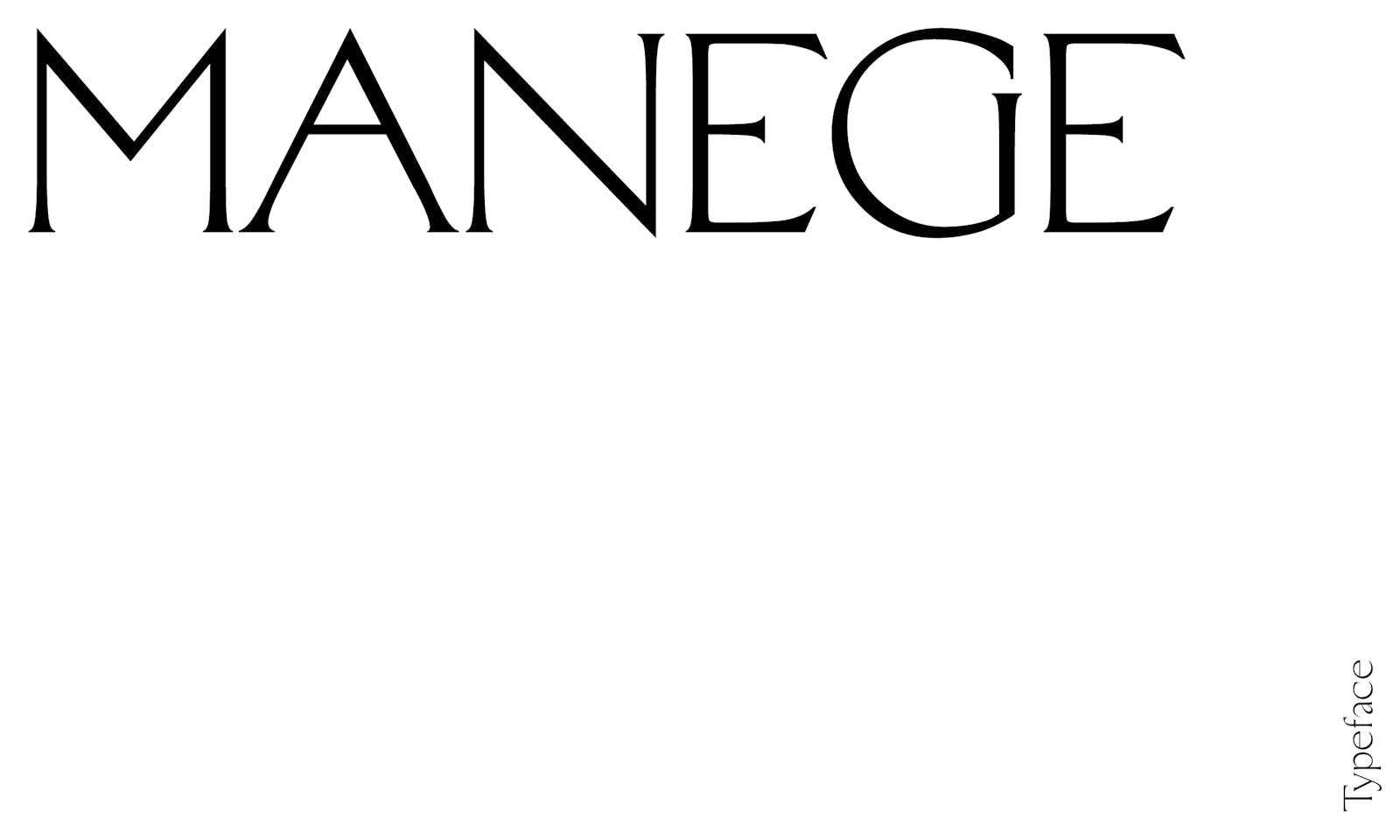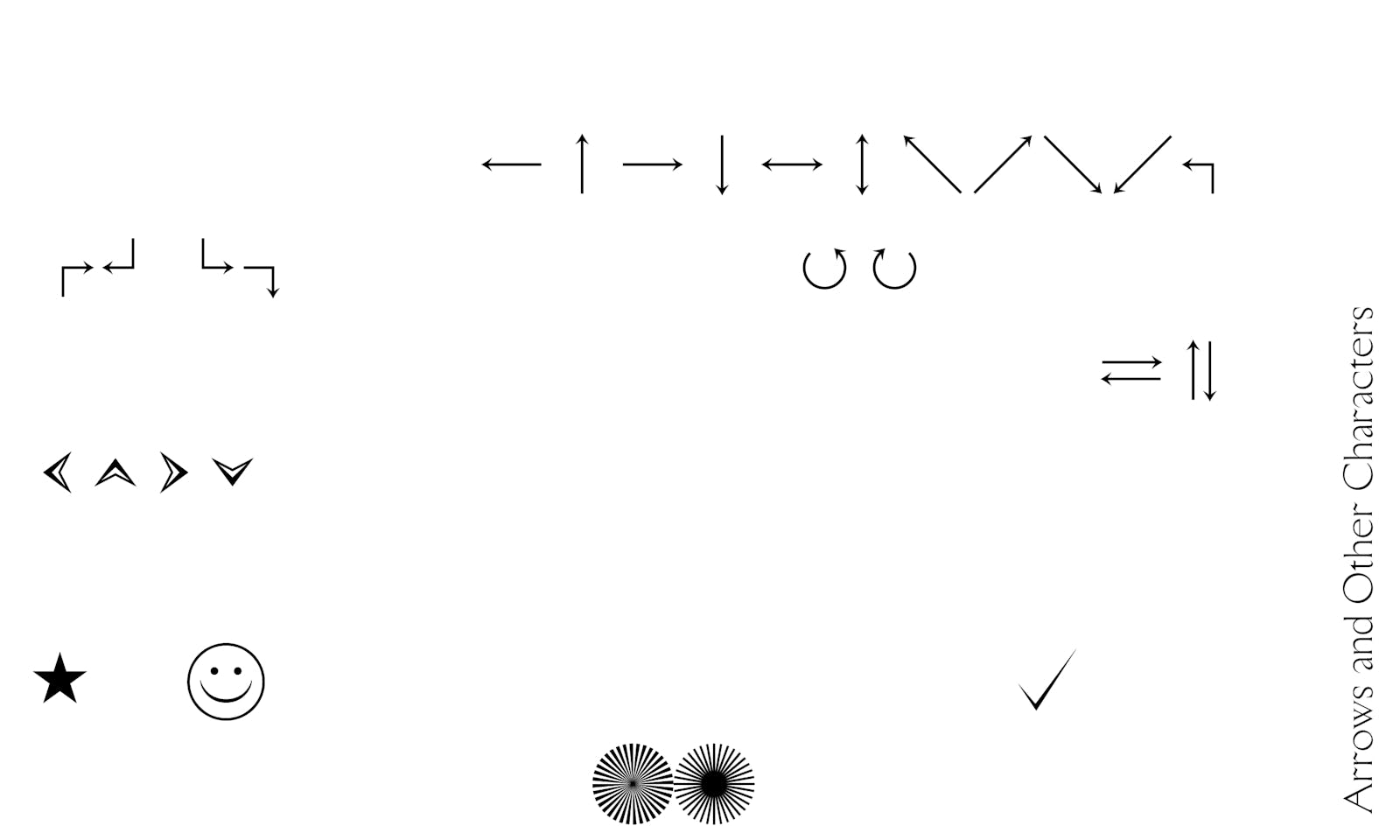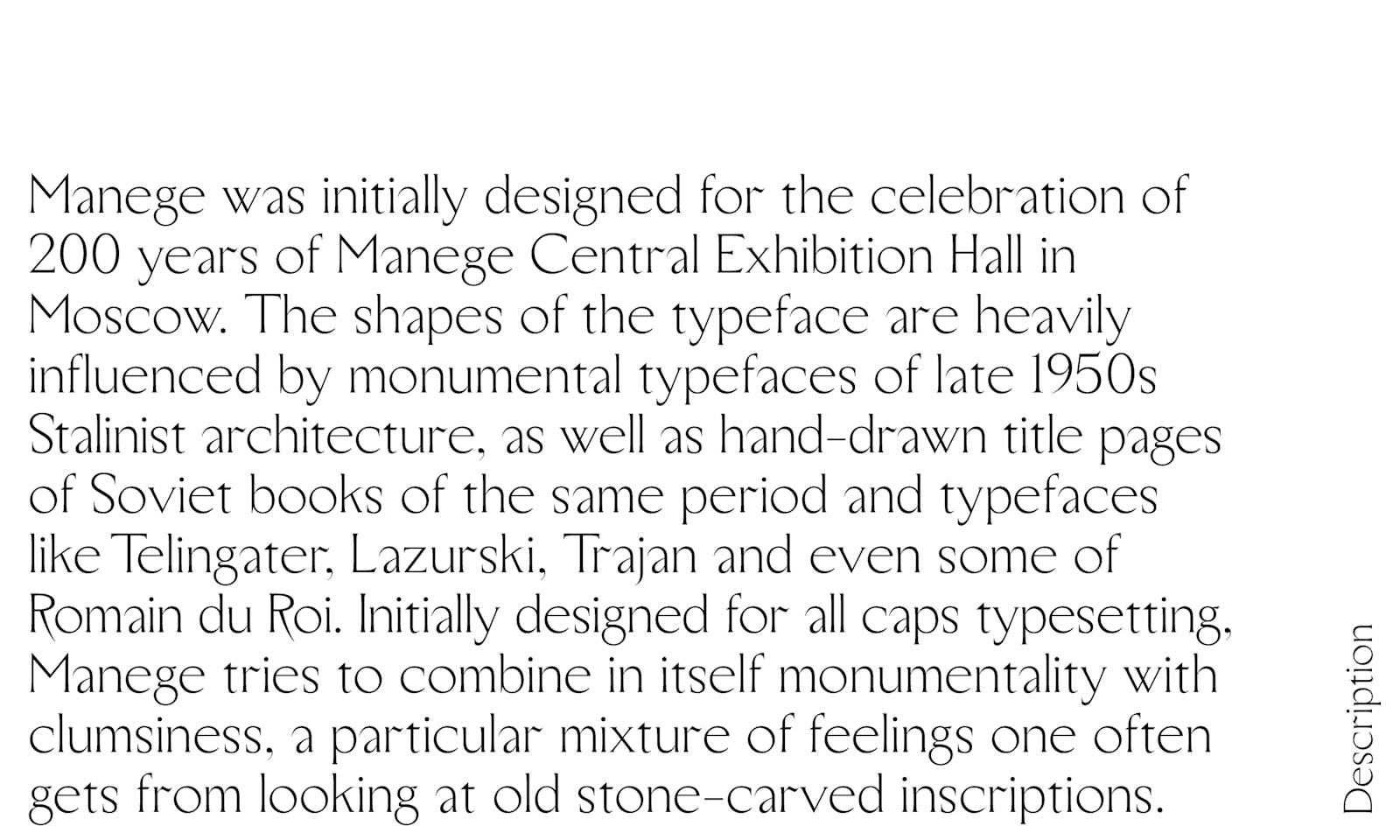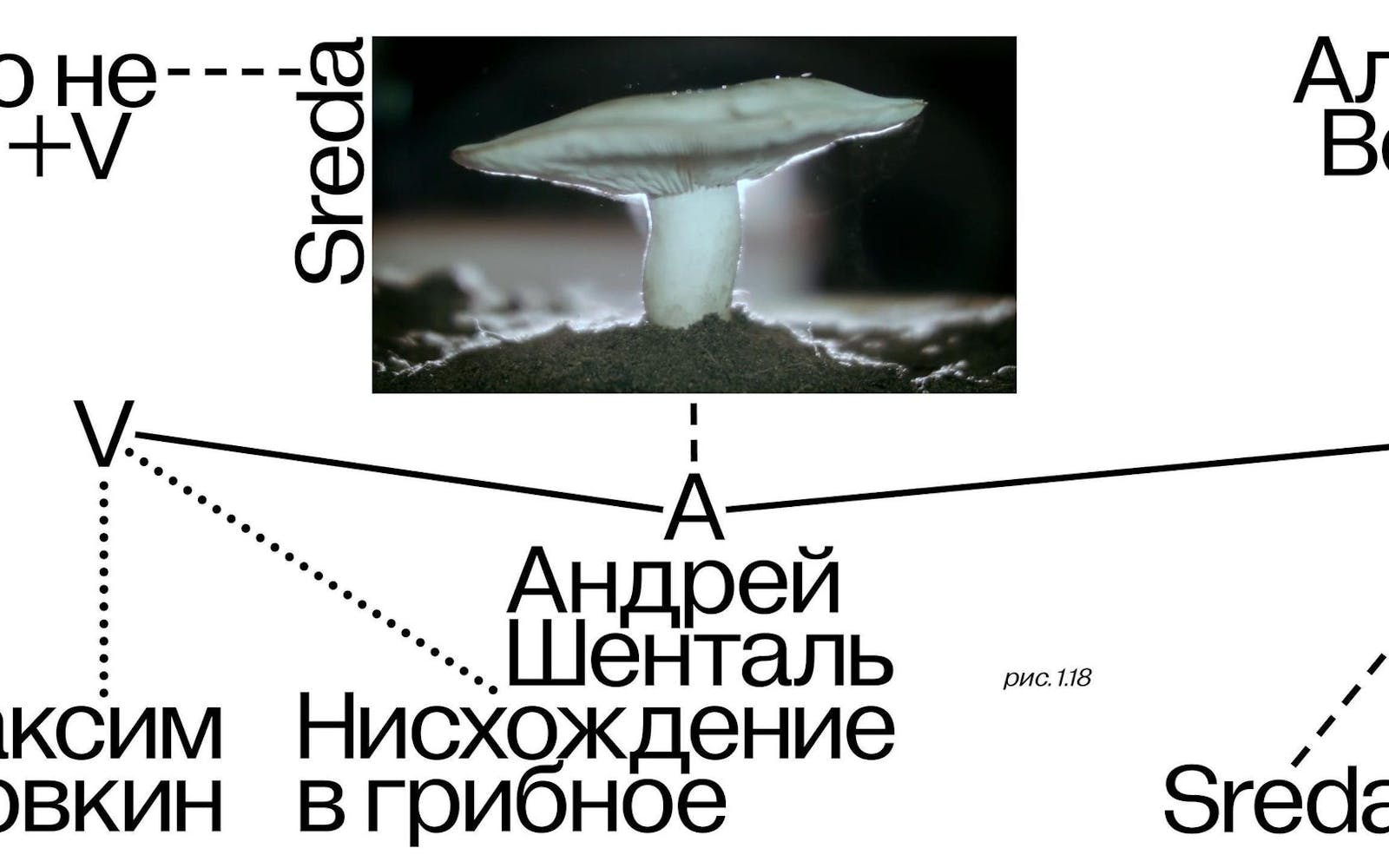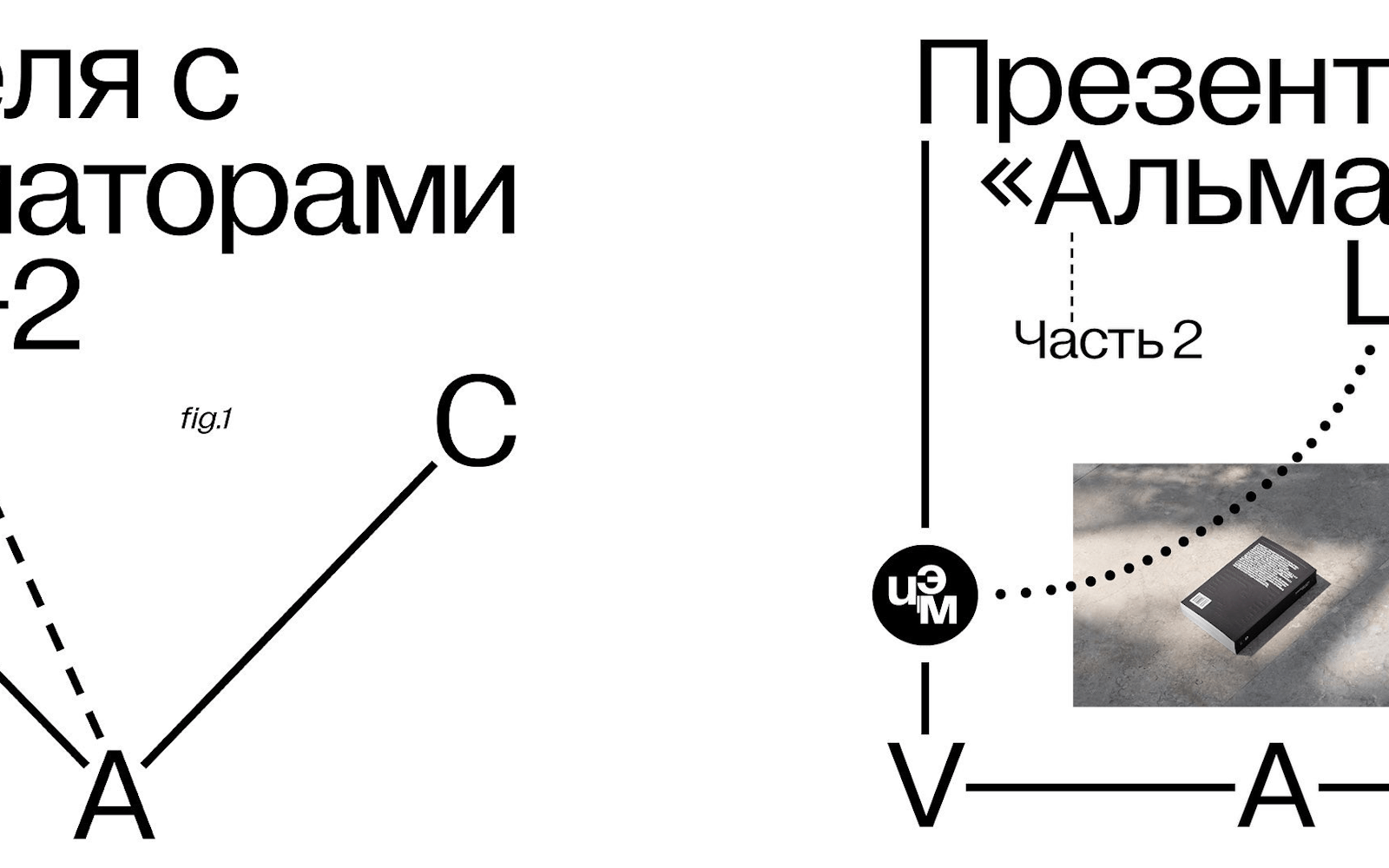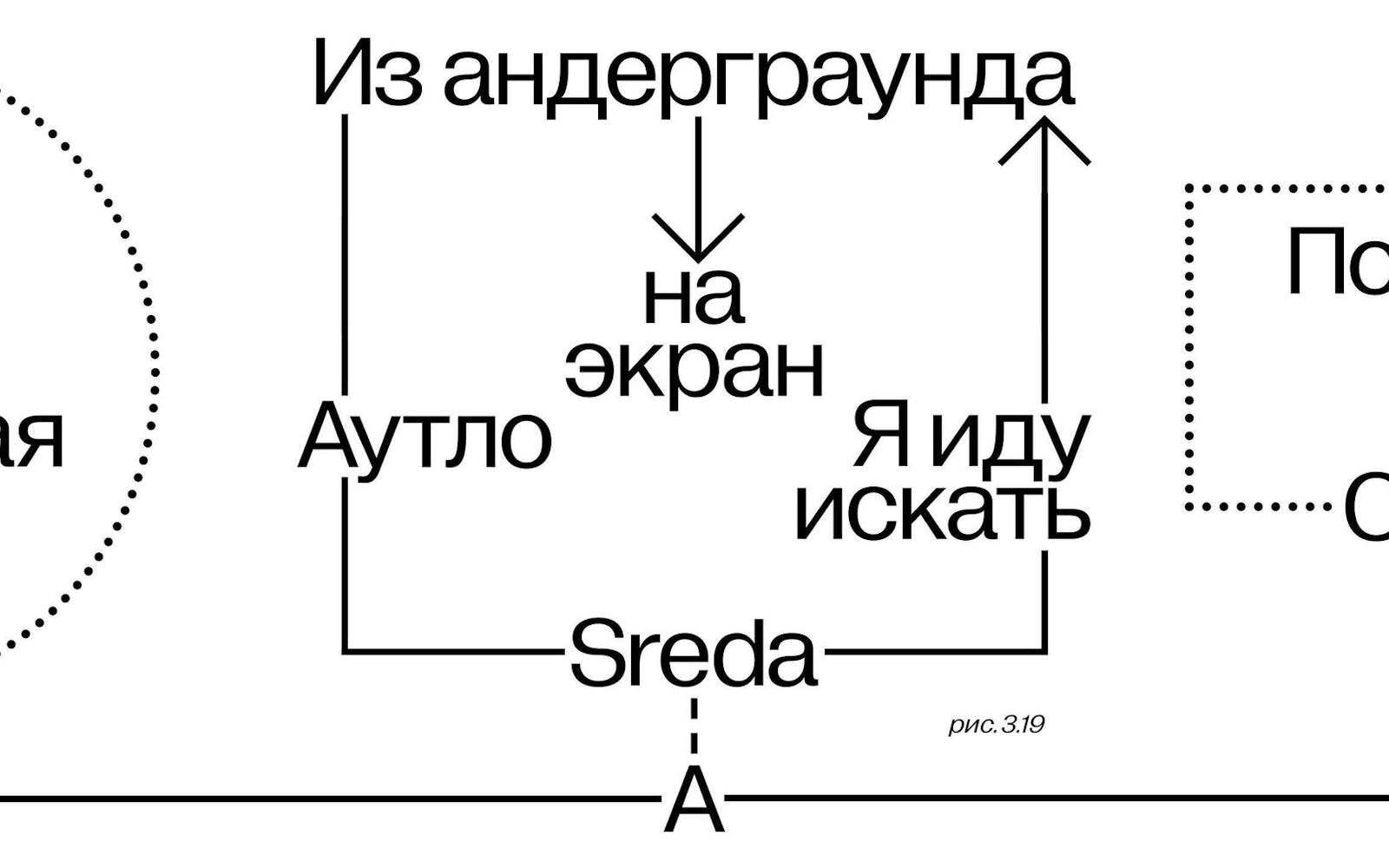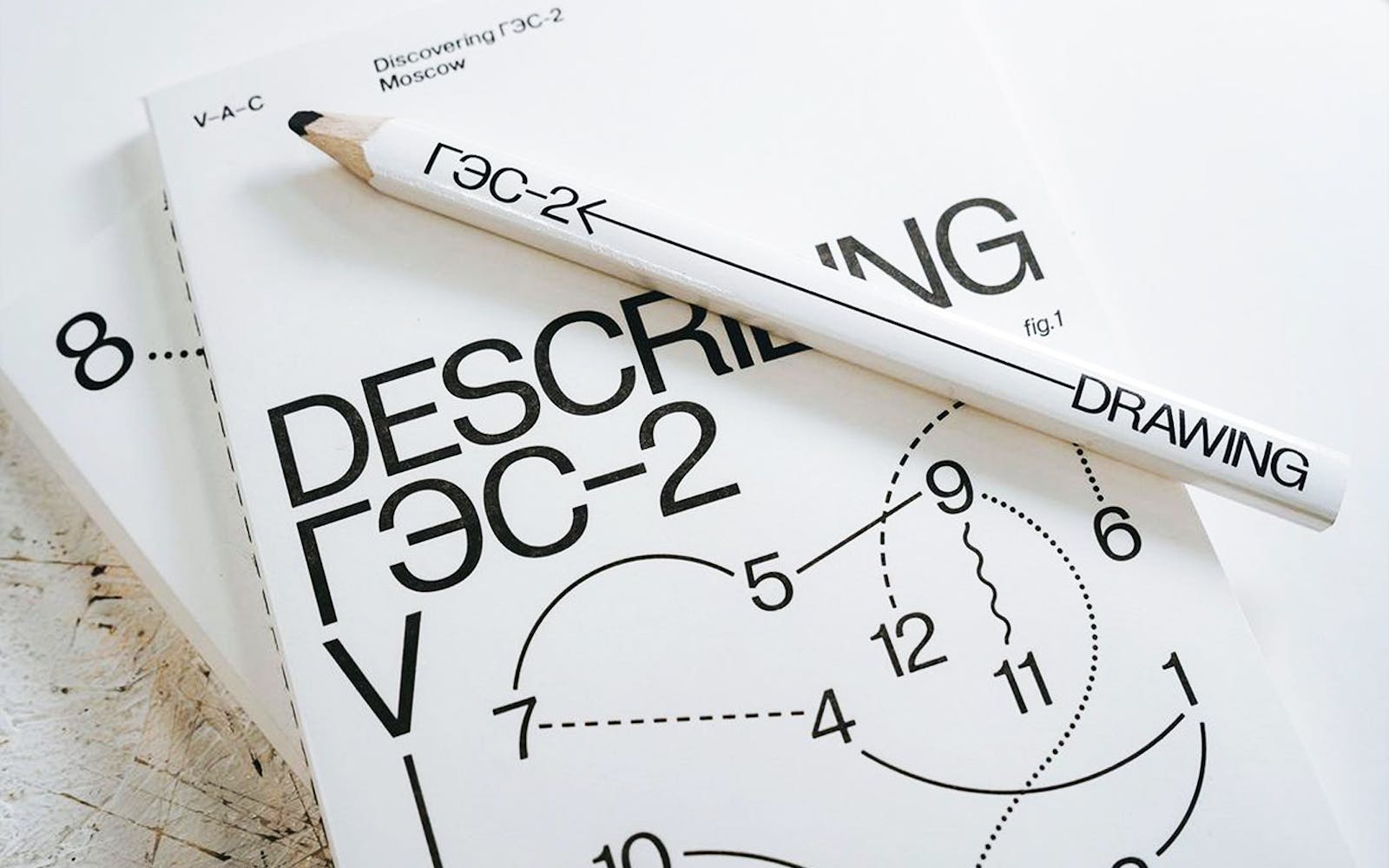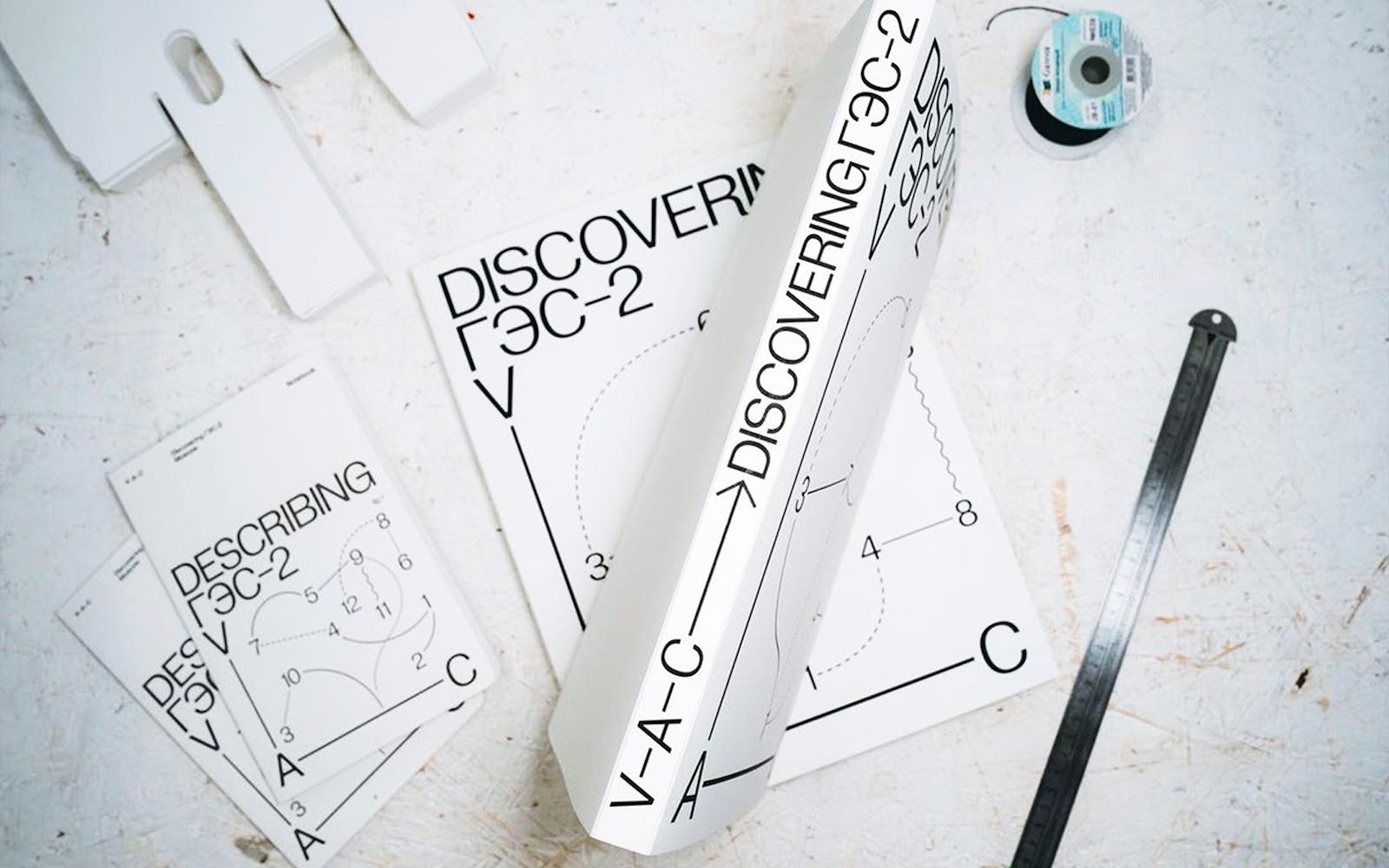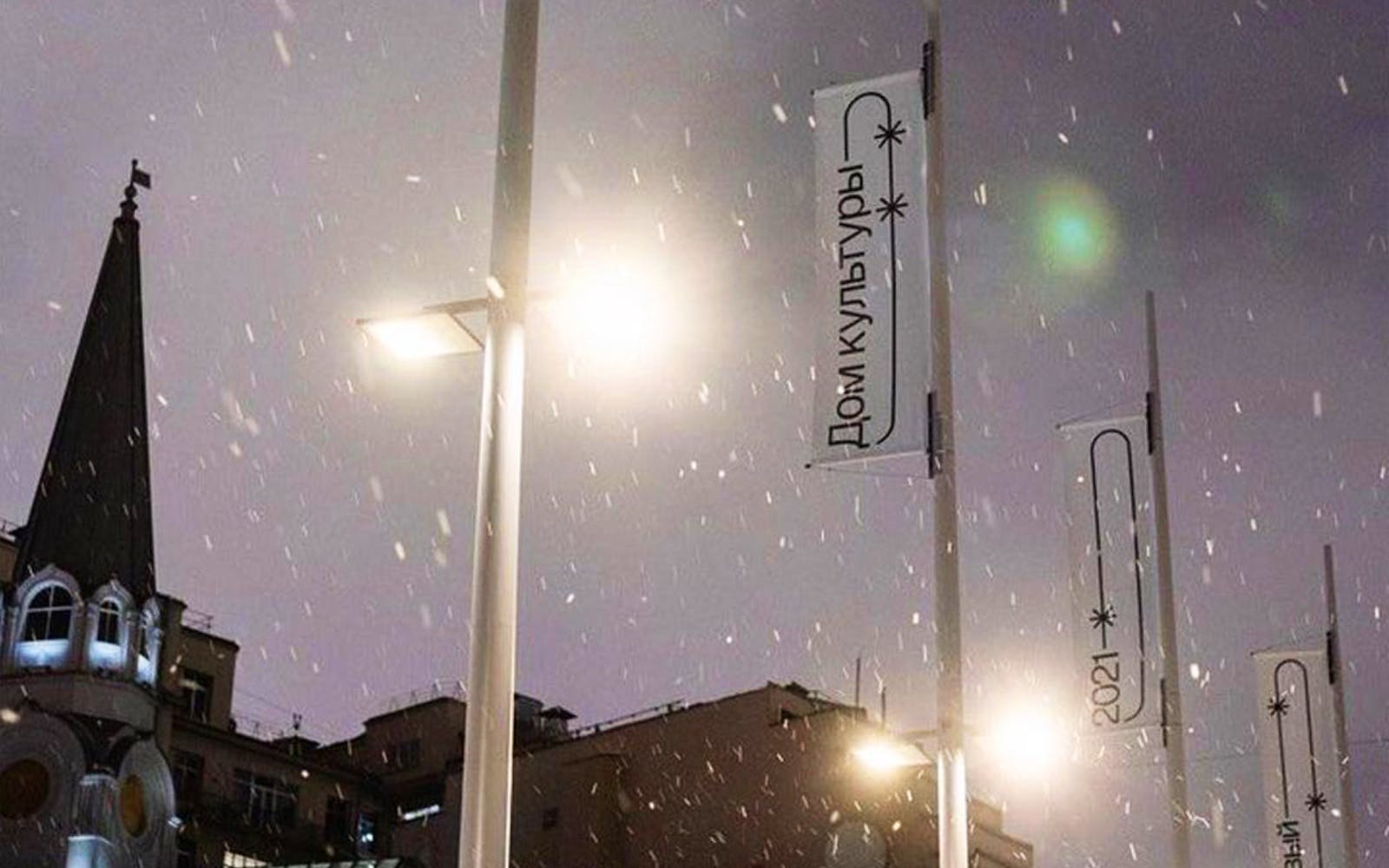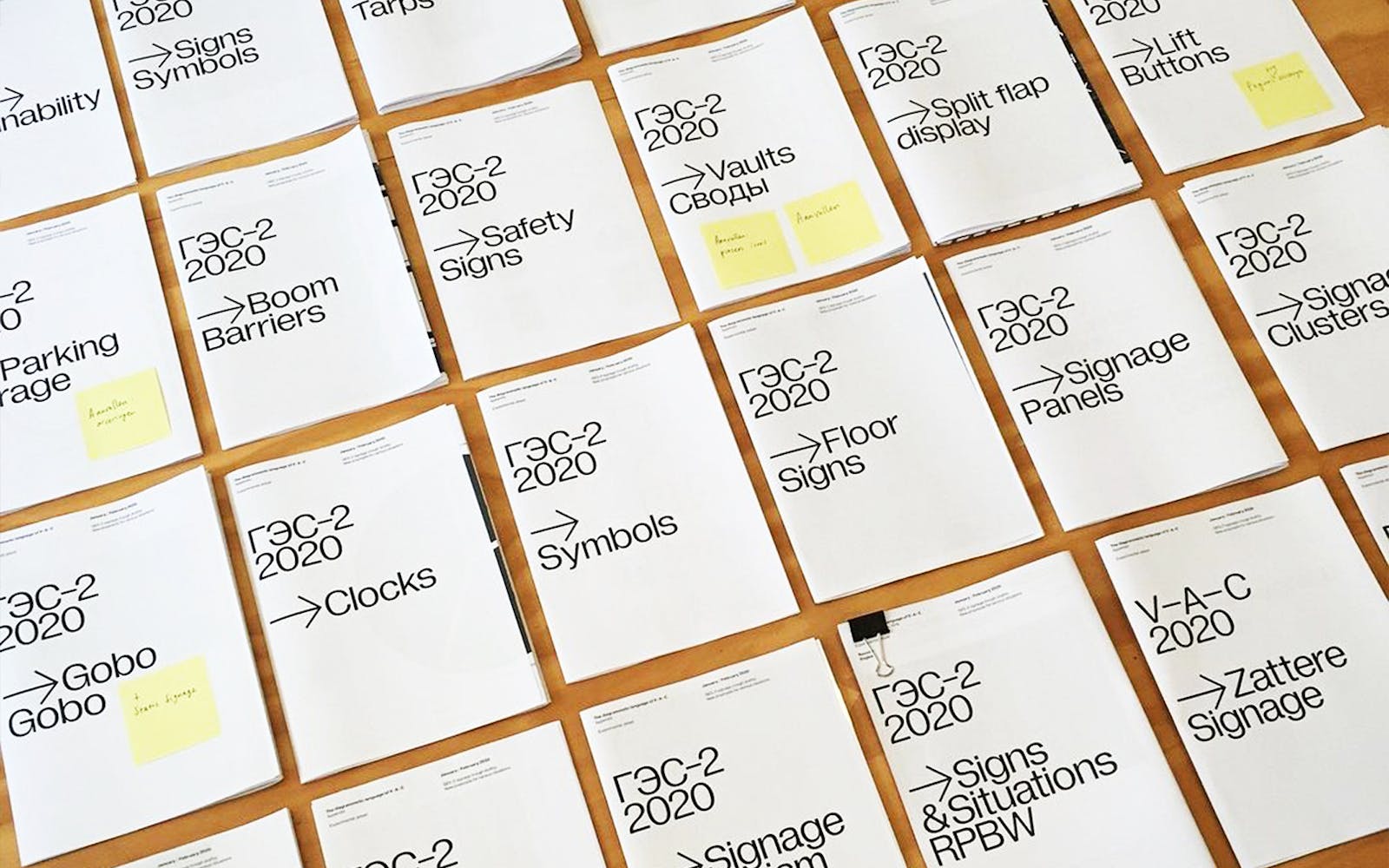
Sovereign Typesetting: An Interview with Typefaces of the Temporary State
By Brian Huddleston
Roman Gornitsky is a type- and graphic designer originally from St. Petersburg, Russia, now based in Leipzig, Germany. He is the sole proprietor of the type foundry Typefaces of the Temporary State.
His typefaces reach beyond their essential function to serve as vehicles for ideological response and challenge long-held assumptions around the medium of type design. Through research and process, he asserts a critical stance on the tools of creative production, the complex web of technical knowledge, and the formal aspects of typography. His output demonstrates an alternate vision for what constitutes an independent type foundry in our contemporary age.
In part one of this interview, we talk about his early work as a student, the origins of his current foundry, and the concepts behind it. In part two, we discuss his recent collaboration with design studio Experimental Jetset designing a new typeface, Diagramatika, used for their visual identity of the V–A–C Foundation. This typeface was later modified and publicly released as Gramatika. In part three, we examine how a myriad of sources—teaching, writing, workshops, and research all serve to inform his work.
BRIAN HUDDLESTON (BH)
Was there a specific moment you can point to as the catalyst for wanting to become a type designer?
ROMAN GORNITSKY / TYPEFACES OF THE TEMPORARY STATE (RG)
When I was a student at the graphic design school, it was commonly considered that Cyrillic typography is far inferior to the Latin one. Our teachers would constantly complain about the Cyrillic alphabet: that all these ugly д and ж are impossible to deal with and don’t allow to set the type right. And that Peter the Great’s alphabet reform (300+ years ago) was a terrible mistake and because of it our typographic ecosystem is damaged beyond repair. And, most importantly, that we don’t have enough cool new Cyrillic typefaces and therefore just lack the tools to be modern. So, there was this idea that new fonts are the way to a better typography. And since there were almost no new Cyrillic typefaces at that time (I have a feeling that there would be only one or two releases a year—and not very exciting ones), I decided to start making my own fonts. Of course, I was quick to find out that new fonts don’t make your graphic design any better, but somehow continued making typefaces nevertheless.
BH
Your first type foundry was called Abstrkt. Can you talk about the origins of this foundry and why you established it?
RG
I never really thought of Abstrkt as a real foundry, it was just a name to publish my [student] work. On one hand, I didn’t want to look for a proper publisher at that time (mostly because I didn’t consider my fonts worthy). On the other hand, it was important to make ‘real’ retail typefaces and not just dump half-working junk to dafont.com. So I went to the free-for-all marketplace of MyFonts.com, where you can just create an account, upload the files, fill in your bank details and that’s it—you’ve got yourself a foundry running.
BH
Do you view Typefaces of The Temporary State as a continuation of Abstrkt or a separate project altogether?
RG
Separate. To certain degree I consider everything Abstrkt a student work—I was just learning how to make fonts. I never was too serious or considerate about what is published under that name (as long as it’s technically operational). Typefaces of The Temporary State is quite a different story, it’s a very curated library. I felt that now that I know how to make typefaces and can actually express some ideas through type design, it is natural to start a new endeavour. That’s also why no old fonts were taken into the new library.
BH
When first visiting your site, my initial thoughts were around the idea of the panopticon. Can you talk about the concepts and mission behind The Temporary State?
RG
I always wanted to have my own state, so why not? Establishing a corporation would be too commercial and a foundation would be too non-profit. Type foundry is too narrowly defined. Cooperatives and societies cannot be started alone. A state seemed like the most appropriate option. Furthermore, I was always fascinated by the idea of micronations, the comedic discrepancy of what they pretend to be and what the reality of their daily operations are. And finally, I think that the idea of a personal state can serve as a fertile ground for speculative design, and I’m a big fan of all sorts of speculations and conspiracy theories.
As for the name… I like, how ‘The Temporary State’ defies the idea of a national state. As every modern state tries to present itself as an ‘unbreakable union’ that was conceived at the dawn of mankind and will last for 10,000 years to come, ‘The Temporary State’, on the opposite, assumes a rather ephemeral entity. While national states are preoccupied with their identities and manifestations of their uniqueness, ‘The Temporary State’ is a rather abstract and unspecific name (might as well be ‘A Temporary State’). To certain extent, ‘The Temporary State’ is an attempt to explore alternative options for state-building, the ones that do not rely on national patriotism.
Typefaces of the Temporary State, Poster tour celebrating one year anniversary of the Temporary State, Selizharovo, Russia
Typefaces of the Temporary State, Poster tour celebrating one year anniversary of the Temporary State, Veliky Novgorod, Russia
Typefaces of the Temporary State, Poster tour celebrating one year anniversary of the Temporary State, Riga, Latvia
Typefaces of the Temporary State, Poster tour celebrating one year anniversary of the Temporary State, Brizule, Latvia
Typefaces of the Temporary State, Poster tour celebrating one year anniversary of the Temporary State, Liepāja, Latvia
Typefaces of the Temporary State, Poster tour celebrating one year anniversary of the Temporary State, Kaliningrad, Russia
Typefaces of the Temporary State, Poster tour celebrating one year anniversary of the Temporary State, Berlin, Germany
Typefaces of the Temporary State, Poster tour celebrating one year anniversary of the Temporary State, Biensdorf, Germany
BH
Your ideas around alternatives to Statehood evoke the project Infinite Passports, by Giuitta Vendrame and Fiona Du Mesnildot, from our exhibition Designs for Different Futures. Are you familiar with this work?
RG
I’m afraid that I’m not familiar with this work. But when it comes to the questions of global migration, I think I’m more interested in the inner emigration, rather than physical relocation. Afterall, The Temporary State exists first and foremost behind the closed doors of my kitchen—and whether this kitchen is in Moscow or in Leipzig doesn’t matter so much.
BH
What does the concept of sovereign typesetting represent for you?
RG
I can think of several reasons for this choice of words:
1. When talking about cultural production, the word ‘independent’ is used too often and too lightly nowadays, to the extent that renders it meaningless. But since any state needs to constantly emphasize its independence, the word ‘sovereign’ comes as a convenient substitute.
2. Of course, ‘sovereign typesetting’ is a reference to Surkov’s sovereign democracy: if a certain political regime calls itself ‘sovereign democracy’, it claims that a) it is a democratic regime, and b) in its sovereignty it is entitled to decide for itself what democracy is and what it is not. Therefore, all claims that ‘sovereign democracy’ is not, in fact, a democracy are rebuffed as attacks on the state’s sovereignty instead. In a similar fashion, by declaring its sovereignty, the ‘sovereign typesetting’ refuses to comply with any conventions of the ‘normal’ typesetting and self-justifies all and any of its claims, however ridiculous they might be.
3. Sovereignty implies much more than a mere ‘independence’. Among other things it implies a certain degree of self-sufficiency and, therefore, the idea of production of its own tools. Can my graphic design be called ‘sovereign’ if it’s made with the tools provided by the foreign corporations who are completely unaware of my cultural context? Can a sovereign website be built on a WordPress template? Can sovereign design manifest itself through a regulated orifice of Facebook event cover picture or an Instagram post? Probably, not. Therefore, the quest for sovereignty becomes also the quest to reinvent the tools utilized in design production and distribution. Designing your own typefaces to be able to speak your own language seems like a natural first step.
I also like that ‘sovereignty’ assumes a certain stubborness. Stubborness that allows you to make your own decisions in disregard to the conditions of the outside world — and therefore often puts you in the position of power somehow.
BH
As a response to the monopoly on tools for creative production, many alternatives have launched in recent years. What type design tools do you currently use?
RG
Well, there are a lot of options available: FontLab, RoboFont (Mac only), FontForge (free under GNU license), DTL FontMaster, Fontographer, Glyphs (Mac only), etc. I’m only familiar with FontLab and Glyphs, and since I don’t work on Mac, Glyphs are not an option for me. But even if there was a PC version, I probably still wouldn’t use it. Just a matter of personal taste—I’m a big fan of FontLab 5. It has the beauty and finesse of a brick and it does exactly what you tell it to do (or crashes), without any attempts to ‘streamline’ your working process or ‘improve’ your experience. There’s only you and Bézier curves, and nothing inbetween. The problem is, FontLab 5 was released in 2005, so it slowly loses its grip on reality (for example, it doesn’t even know of the existence of woff format). And, unfortunately, FontLab 6 (2017) and 7 (2019) are nothing like their glorious predecessor—for me they are an absolute torture to use. I’ve spent at least a month trying to force myself to switch to FontLab 7, but just wasn’t able to: everything is laggy, copy-paste pastes ‘elements’ instead of simple outlines, selection is not considered an action (so ctrl-z is a mess), ctrl+click doesn’t always pick the nearest contour, a shift-dragged 450×450-units square turns out to be 450×449-units rectangle… aargh! So currently I’m stuck using TypeTool 3 (which is basically the same FontLab 5, but cheaper and with slightly limited functionality) for drawing and FontLab 7 for mastering.
BH
For you, what is the function of a typeface?
RG
To set text. I consider all my typefaces to be text typefaces and I don’t really know how to make or use display fonts. Whenever I would be asked to do some lettering job, I would always get stuck thinking: “Why can it not be set in Times New Roman? What’s wrong with just using a text typeface?” So, I am rather jealous of type designers to whom lettering comes naturally and easy and who seem to just enjoy drawing letters, but for me it doesn’t work. For me the lettershapes need to come from somewhere else.
Soyuz Grotesk unknowingly in use simultaneously for both the Virtual Russian pavilion and Serbian pavilion identities at the 2018 Venice Biennale of Architecture. Virtual Russian pavilion designed by Maria Kosareva. Serbian pavilion designed by Nenad Dickov.
BH
Currently, The Temporary State is just you. Would you consider growing the foundry if the opportunity presented itself?
RG
This omnipresent idea of inevitable growth seems really strange to me. That every year you are supposed to produce more and more. That you should employ people and aim to transition from productive labor into the managerial position (because laborers don’t make enough money, I guess?). I don’t think I would enjoy that—I like to make things much more than telling other people what to do. And yes, of course, the fact that I can be in full control of the outcome is crucial. I don’t really know what part of my work I could delegate. Can I ask somebody else to draw some characters? But in that case, I would probably spend more time revising, correcting and explaining how I want the characters to look like. Ask somebody else to do the kerning? But it’s such a crucial part of the typeface—for me it is inseparable from spacing and even drawing (and again, explaining to someone else how I want kerning to be and then checking and correcting the results would probably take much more time than just doing it myself).
BH
Do you work on custom or commissioned typefaces?
RG
Sure. It is important that the typeface is developed with some practical context in mind and having a commission is great because it provides such context. First version of Soyuz was made for a V–A–C Foundation exhibition. Steinbeck came from a typeface developed for Esquire magazine. Manege was initially planned for the anniversary of Moscow Manege.
That being said, I think it’s important that even if commissioned, the typeface still ends up available to public. I don’t like the idea of granting the exclusive rights for a typeface to just one user. Fonts are supposed to be versatile and they are supposed to work in all sorts of typographic environments, so seeing a corporate typeface—being used by only one company in only one way—is always a bit sad.
BH
You recently finished work on developing the custom typeface Diagramatika for use by Experimental Jetset on the identity for V–A–C Foundation. Afterwards, Diagramatika was revised and released publicly as Gramatika. Can you talk about the origins of this project? Was there a clear goal from the outset?
RG
They’ve already had a complete identity proposal (set in Pragmatica) when we first met, so there was no real reason for me to suggest something completely new aesthetically. Rather, I thought, it will be interesting to preserve the overall image while completely reconsidering all the parameters of which it is made of. My first proposal to them was to make extremely short ascenders and descenders. They liked that idea and so from there it went further.
V–A–C identity in use at V–A–C Zattere, Venice. Photo: Delfino Sisto Legnani e Marco Cappelletti
BH
What was the collaborative process like? How much did the development of Gramatika influence the visual identity of V–A–C Foundation, and vice versa?
RG
I’m not sure if there is much to tell (without getting into nerdy details). Which is a good thing—I guess, it means that it went rather smooth. For a long time, I’ve been working for the Moscow Museum of Modern Art, setting posters and invitations in Pragmatica on an almost daily basis, so I understand rather well how Pragmatica/Helvetica operates and what (numerous) issues it has. So I had quite a number of possible improvements in mind already and I think that mostly we did agree on what needs to be improved. To certain extent it was just about finding the right initial proportions, contrast and spacing—and the rest was technique. There was never a moment when we would think: “Oh, this is going completely the wrong way! We should reconsider the entire typeface from the very beginning.”
As for the impact of the typeface on the identity, I think it’s a question for EJ themselves—I’m not the right person to judge, really.
BH
Do you feel that some of these ideas around sovereignty could apply to Gramatika? Is this an attempt to take something as ubiquitous as Helvetica and remove it from the trappings of its’ Modernist legacy and the burden it carries?
RG
Well, now that I have Gramatika I don’t want to use any other fonts anymore and I certainly want to design more typefaces that would develop Gramatika’s ideas further and that would operate within the same framework. So, it’s a big step towards developing an arsenal of my own tools.
The second part of the question is not so easy to answer, though. I wanted to dedicate a part of Gramatika’s release text to the question of “Why would anyone want to use another Helvetica nowadays?”, but didn’t find the right words. There are just too many possible answers. It can serve as the typeface of Corporate Capitalism just as well as the typeface of Utopian Socialism. Someone can use it to challenge the International Style legacy, and someone can use it to follow up. And someone can use it in complete disregard to any legacy whatsoever. It can be used to paint Metahaven’s digital dystopia or to neatly typeset another Swiss furniture catalogue. And I personally don’t feel the presence of its corporate burden so much: since Helvetica was never a big part of Russian graphic landscape and I didn’t grow up in the helveticized world, it seems that I can treat it much more light-hearted than people from the West can. A blissful ignorance.
V–A–C diagrammatic identity in use. Design by Experimental Jetset, implemented by V–A–C in-house design studio
BH
Gramatika is critical of certain standards in type design—OpenType feature utilization, x-height measurements, hyphen and dash usage, etc. Can you talk about this? Were these ideas born out of this collaboration? Were they symptoms of your own frustration? Are type designers reverse-engineering their work to fit into paradigms dictated by commonly used tools of creative production?
RG
Well, the manual that I’ve written for Gramatika is already too technical and nerdy, so I’m afraid that if I elaborate further and start getting deeper into the details—like talking about the UPM dogma and such—we might lose our readership entirely. Generally speaking, I don’t think there are any dictated paradigms. Quite the opposite, I think what we have is a complete, utter mess. And I really wouldn’t mind complying to some existing standards, but most of them are either severely outdated, contradictory, or simply non-existent. Trying to avoid too much technical stuff, let me give you a random example: an underline. Every font file describes the preferred position and weight of the underline. There are two values: the thickness and the distance from the baseline to the top of the underlining stroke. Simple, reasonable and we might start to consider what ‘traditional’ underline should look like. But here comes practice: InDesign thinks that ‘distance to the top of the stroke’ means ‘distance to the middle of the stroke’ (due to the difference in PostScript and OpenType definitions—but I promised not to get too technical). So as a type designer you have a choice: either your underline renders correctly in InDesign, or it renders correctly everywhere else. Further, web: Firefox (as far as I know) is the only major browser that renders the underline correctly according to the font values. Chrome (and all the other Chromium-based browsers, I believe) just completely ignores* everything that a font file is trying to tell it. So, basically, on the web you have no control over how your underlined text will look like. Even though underlined text is probably the single most iconic attribute of web typography.
So, for me Gramatika was, among other things, about finally figuring out some rather technical questions: Why should the sum of ‘typoAscender’ and ‘typoDescender’ equal UPM and what happens if it doesn’t? How should the ‘case’ feature be written properly and should it be written at all? Is there a good reason for an emdash to actually have the length of one em? Is there ever a reason to set non-zero ‘lineGap’ value in the font’s vertical metrics? It was not so much about challenging rules or conventions—simply because the supposed rules are so messy and contradictory that they cannot be properly followed anyway—but just trying to establish a framework that I would be comfortable with.
*As things on the web are in constant flux, a small update is required: almost right as we speak, in November 2020, Google added the support of “text-underline-position: from-font;”, which will finally make their browser take the correct values from the font files. It is still not the default, though, and you need to write an extra line in your CSS for it to happen.
Gramatika Manual, Cover, Design by Roman Gornitsky
Gramatika Manual, pp. 04-05, Design by Roman Gornitsky
Gramatika Manual, pp. 08-09, Design by Roman Gornitsky
Gramatika Manual, pp. 12-13, Design by Roman Gornitsky
Gramatika Manual, pp. 20-21, Design by Roman Gornitsky
Gramatika Manual, pp. 30-31, Design by Roman Gornitsky
Gramatika Manual, pp. 32-33, Design by Roman Gornitsky
Gramatika Manual, pp. 42-43, Design by Roman Gornitsky
Gramatika Manual, pp. 46-47, Design by Roman Gornitsky
BH
With Gramatika, the conceptual intention and logic is embedded in the construction and measurements of the typeface. This outwardly effects the function—responsibility for correct typography falls to the user. It doesn’t pander, it treats the user as an equal. Do you see this as an ideological response to our current systems?
RG
Certainly. There is this dogma nowadays, that all the software needs to be ‘user-friendly’. And the ‘user’ in this ‘user-friendly’ is never the one who’ve spent years to master the craft, but an absolute beginner who’ve just opened the program for the first time. The interface should be inviting and not too complicated or intimidating. Everything needs to be self-explanatory. The mistakes should be automatically corrected and not punished. There cannot be any learning curve. Which are all reasonable assumptions if you design a ticket booking app, but in the case of professional software it’s a disgrace. It mocks professionalism. There is this common image of a ‘creative’ worker: take the first Adobe advertising that comes up in YouTube search, a video named “Never Settle”. It shows people doing all sorts of work—editing videos, drawing illustrations, retouching photos—all just by lazily moving a finger over a MacBook’s touchpad (or a tablet!), while sitting in the dark of what resembles mom’s basement more than any sort of real working space. To me, this is plain offensive. Because this is not what working on a font kerning table, or a book layout, or a video post-production, or a 3d render looks like. There are real knowledge, skills and labor involved in the design production. It’s a profession, not a hobby, and it requires professional, not hobby tools. It is not ‘my nephew has Photoshop, he can do it’. It is not generated with one click of a button. It is not done with a magic wand—so maybe it’s time to stop inventing magic wands that don’t work and rather cater to the real needs of the industry. This advertising enhances the very wrong image that ‘creative work’ is somehow not real work—it’s a play work. In which case, I guess, we should be paying play money for Adobe products—but that somehow is not the case.
Early incarnation of the V–A–C graphic identity, at that time still set in Pragmatica, as used on a flag designed by Experimental Jetset (for an exhibition at V–A–C Zattere)
V–A–C diagrammatic identity, early process sketches, design by Experimental Jetset
V–A–C diagrammatic identity in use on various materials, design by Experimental Jetset, implementation by V–A–C in-house design studio
Lenticular type specimen poster, design by Experimental Jetset
V–A–C diagrammatic identity in use for DK ‘Zattere’ zine
V–A–C diagrammatic identity in use for sudest 1401 restaurant menu
V–A–C diagrammatic identity in use on banners, design by V–A–C in-house design studio
V–A–C diagrammatic identity in use on various materials, design by Experimental Jetset, implementation by V–A–C in-house design studio
BH
Gramatika features a large set of universal pictographic symbols. Can you speak to the development of these? Were they in dialogue with the diagrammatic language of the V–A–C Foundation identity?
RG
I have a feeling that I’m going to regret adding those. The list of additional symbols for the V–A–C identity typeface was quite modest and mostly included abstract geometric shapes, arrows and just a couple of interface/navigation icons. It was trim and fit. But when I started to work on the public release of the typeface, I decided to maybe expand this symbol set just a little bit—and opened the Pandora box. Now there are 300-something additional symbols and I think it’s just too much. But at the same time, I’m curious to see what will happen to all of those. Does it actually provide the sufficient set of tools for interface design, or will there always be the need to draw bespoke icons? Will some of these non-alphabetic non-punctuation symbols be ever used in a meaningful manner or will they always end up as a mere decoration? And how many of these symbols no one will ever use at all?
BH
Throughout the Gramatika manual, you speak to the poetry, charm, and warmth to be found at the heart of Modernism, in the ideals of universal design embedded within. Can you elaborate on this?
RG
I don’t find Modernism to be cold or impersonal. Maybe Swiss Modernism is. But if we speak of Soviet Modernism, isn’t it poetry:
Новгородский академический театр драмы имени Ф.М. Достоевского (Novgorod Academic Drama Theatre). Architect: Vladimir Somov
It might be totalitarian or inhumane in its ultimate declaration of utopia, but it certainly isn’t boring, cold, or unpoetic.
This is the house in which I used to live in Moscow:
Bolshaya Tulskaya st., 2 (commonly known as 'The Ship', 'Titanic' and 'The House of the Nuclear Workers')
It’s an enormous humanhive of one thousand flats, a creation of monumental proportions designed to survive a nuclear blast. But if you ask me to describe my experience living there in just one adjective, I would say ‘cosy’.
BH
I read that you led a workshop at the British Higher School of Art and Design in Moscow. Do you teach type design regularly?
RG
It was a bit longer than a workshop—more like a short course. I did it twice—in 2018 and 2019. Here’s the assignment and some results from 2018. Important thing to note about this assignment is that it actually consists of two parts: in the first part the students make their typefaces and in the second part they are making layouts using the typefaces that they’ve made. I think it’s an important addition, because if you don’t use your fonts, you don’t really know what you’ve done.
Currently, though, I don’t teach anywhere.
Project exhibition for the workshop We Begin with a Squiggle, with Roman Gornitsky, Paul Gangloff, Bart de Baets, Elisabeth Klement, Natasha Agapova, and Tanya Ermolaeva. Moscow Museum of Modern Art Education Center, May 10, 2019
Joint Moscow-Tallinn workshop with Claudia Doms and Roman Gornitsky at Eesti Kunstiakadeemia (Estonian Academy of Arts), October, 2018
Monospaced Typefaces workshop with Roman Gornitsky at British Higher School of Art and Design, Moscow, October, 2018
Monospaced Typefaces workshop with Roman Gornitsky at British Higher School of Art and Design, Moscow, December, 2019
BH
Why no pound signs?
RG
Let me start from afar. The Unicode character map is vast and it’s impossible to cover its entirety, so priorities have to be made. For example, all my fonts include Kazakh alphabet (which gets omitted sometimes, since Kazakh alphabet as well as the majority of other non-European Cyrillic alphabets—Tatar, Bashkir, Mongolian, etc.—is not part of Win-1251 codepage). That requires drawing a number of additional characters, namely: ӘҒҚҢӨҰҮҺәғқңөұүһ. While those characters are not particularly hard to draw, they are a real drag to kern (for example, Ұ alone has 129 pairs in the latest release of Gramatika Regular). So adding Kazakh language takes quite a lot of time and effort. Now, I don’t think that my fonts are particularly popular in Kazakhstan, and even worse, in 2017 Nazarbaev announced the plan to fully transition to Latin alphabet by 2025, so all of this work may turn out to be useless. But nevertheless, the Kazakh characters are still included, in naive hope that the more good Kazakh typefaces are produced, the higher are the chances for Kazakhstan to stay Cyrillic. At the same time, I decided to remove the support of Maltese (which is almost always included in the Western releases). Simply because I don’t think that anyone will ever set anything in Maltese using my fonts and not having to kern Ħ will save me a reasonable amount of time in production.
The characters of Kazakh alphabet that are not included in Win-1251 codepage, set in Steinbeck typeface
So when it comes to the currency symbols, there are just too many of them: Afghanistani Afghani, Azerbaijani Manat, Cambodian Riel, Chinese Yuan, Indian Rupee, Iranian Rial, Israeli Shekel, Japanese Yen, Korean Won, Lao Kip, Mongolian Tughrik, Nigerian Naira, Philippinian Peso, Thai Baht, Turkish Lira, Ukrainian Hryvna, and so on, and so forth. Including all of them would require too much effort—almost as much as drawing an entire new alphabet—and I would rather spend that effort adding directional arrows or something else useful. Therefore, the currency symbol set is kept to a bare minimum and if it was possible, I would get rid of all of these symbols altogether. After all, empires and currencies come and go, typefaces stay. Win-1252 codepage still encodes—and therefore most of the modern fonts still include—a symbol for the Dutch guilder. Hundreds of type designers keep drawing a symbol for a currency that doesn’t exist for almost 20 years now. On the ‘Currency Symbols’ Unicode block you can still find the characters for Brazilian cruzeiro (abandoned in 1994), Argentinian austral (abandoned in 1991), German pfennig (abandoned in 2002) and even such an obscure unit as spesmilo (abandoned in 1927?). Now, I understand why people consider the British pound to be a special case: it’s hard to get rid of the idea that the sun never sets on the British Empire and anywhere from Kingston to Wellington you can exchange bills with her majesty’s portraits for a pint. But even those days are over, I’m afraid, and nowadays the British pound is just another national currency—like a rupee or a shekel.
BH
So, for you, rather than viewing it from a practical or a business perspective, the final supported character set of a typeface can be a vehicle for ideological response on the part of the foundry?
RG
The character set of a typeface is certainly an important manifestation of ideas. I think it’s necessary to be considerate to which symbols you include in your fonts and not just blindly copy the Win/ISO/MacOS codepages. Not only because a lot of potentially useful characters are missing from those codepages (see ‘Expansion of the Alphabet’ in the Gramatika Typesetting Manual, p. 34), but also because there is a lot of junk in there, which is not worthy of wasting your time on (do we really need masculine/feminine ordinal indicators?).
BH
Do you need to go to school for type design? Is type design something that can be self-taught?
RG
I have no idea, because I never went to a type design school myself. I don’t really know what happens in type design schools.
BH
In addition to releasing typefaces, you also publish your research on Letters from the Temporary State. What role does research play for you in the process of designing a new typeface?
RG
It all started with Soyuz Grotesk. The Cyrillic part of Soyuz came quite easily, but then I was stuck with Latin for a very long time not knowing how to approach it. As I always felt rather comfortable writing and always wanted to write more, I decided to try to design the typeface and write about it at the same. Or rather, even let the narrative dictate my design decisions. And in the case of Soyuz I have a feeling that it worked quite well—I was able to find the solutions that I wouldn’t consider otherwise. So now writing is an essential part of my practice and I enjoy it quite a lot.
Panama typeface in use on Poster for Colored People Time: Mundane Futures at ICA Philadelphia, design by ELLA
Panama typeface in use on Poster for Colored People Time: Quotidian Pasts at ICA Philadelphia, design by ELLA
Panama typeface in use on Poster for Colored People Time: Banal Presents at ICA Philadelphia, design by ELLA
Panama typeface in use on Gallery Guides for Colored People Time: Mundane Futures, Quotidian Pasts, Banal Presents at ICA Philadelphia, design by ELLA
Posters (detail) for Colored People Time: Mundane Futures, Quotidian Pasts, Banal Presents at ICA Philadelphia, design by ELLA
Panama typeface in use on Exhibition Catalogue for Colored People Time at ICA Philadelphia, design by ELLA
BH
What role do historical models play for you in modern type design? Are type designers too beholden to what came before?
RG
Well, I’m a Cyrillic type designer, so my source of historical models is not as vast as Latin. But even with that limited source material (which is still more than enough for a couple of lifetimes) there’s a lot of work to be done—I mean, we don’t even have a good digital version of Literaturnaya yet, how is that possible? So, when there is a gap like that, I don’t see any shame in revisiting the past (and even just copying something from an old specimen is still a creative process and can be done in many different ways). Also, if you know what you are doing and why—if you have, for example, a good reason to make another Garamond, you should make another Garamond despite the fact that there are hundreds of them already.
BH
Several of your typefaces offer alternatives around what constitutes an italic. I’m thinking specifically of Panama’s Iranic as well as Five Years Later’s Rotated. Do you feel that type designers have been too lax around challenging basic assumptions of the medium?
RG
I think there are obvious economical reasons for why the things are the way they are. It’s natural for a commercial type foundry to maximize the output and minimize the labor, nevermind the quality as long as it doesn’t affect the sales. Therefore, things are streamlined and normalized. Therefore, there are standard italics in every font (often not even made by the font’s author, but by some technical staff). Therefore, there are ten shades of bold in every type family (often auto-generated from just two masters). So it is obvious why does the commercial type look the way it looks. If I had a company with employees, investors and a board of directors, I also might have had to look into cutting some corners. Thankfully, I don’t need to do that. And thankfully there are still a lot of other smaller studios who are able to produce interesting work.
BH
How do you approach the design of new typefaces?
RG
I’m not sure. It’s just something that happens: some thoughts that eventually get developed as fonts.
Or, if the question was regarding the process: usually I work in some intervals—I quickly draw an entire character set, run some tests and then leave it alone until I forget how it looks like. Then I come back and redraw it. And so on and so forth until I’m happy with the result. And then comes the dread of kerning and mastering.
BH
So, they often stem from an urge or question on your part that you then explore further? Are these questions based on function, aesthetics, or both?
RG
I think usually it comes from the typographic practice. I do believe that the best tools are made by the ones who use them. So if you use Caslon all the time in your daily work, the chances are that sooner or later you will develop some ideas about how to improve it. And even if it’s just a seemingly small adjustment that you want to make, it can develop into a much bigger concept, once one little adjustment leads to the other and you start to dig deeper. Eventually, the whole Gutenberg Universe is upside down.
BH
Are you mindful of contemporary aesthetics when creating new typefaces?
RG
Not so much. Rarely a typeface comes as a reflection of some current situation—usually it is in the consideration of the past or imaginary future.